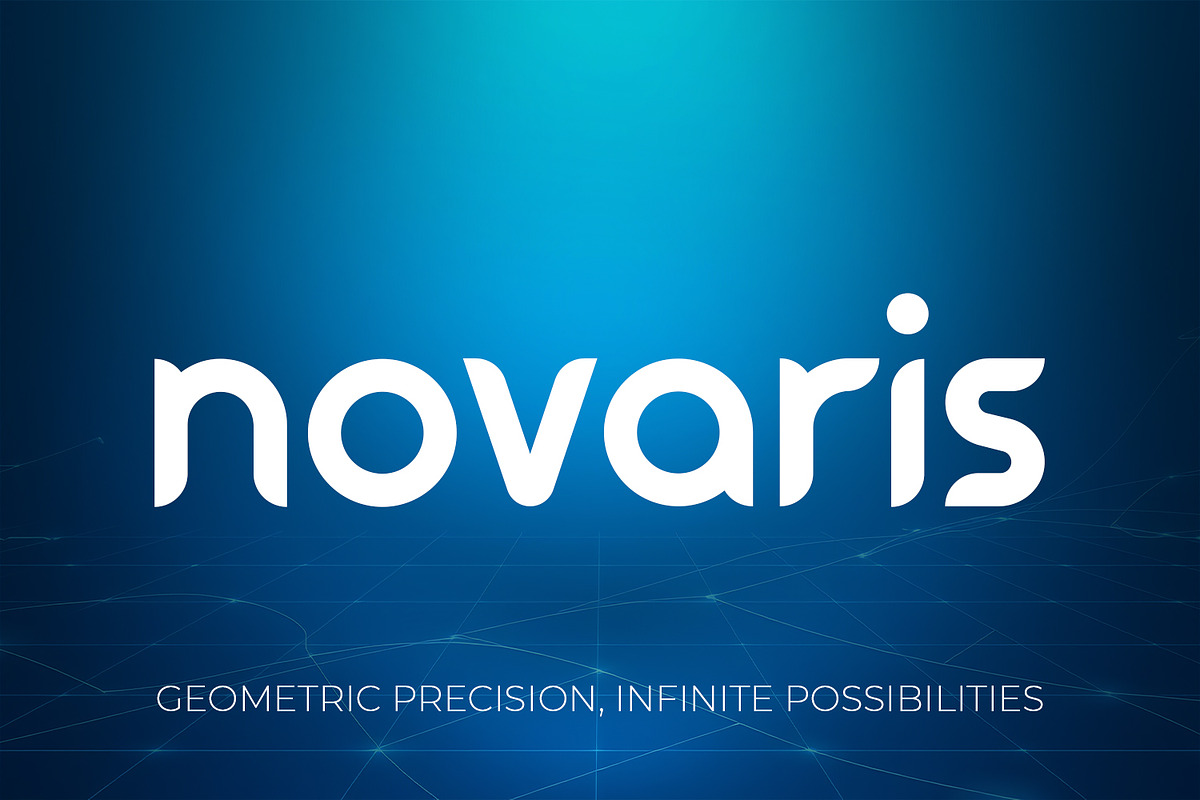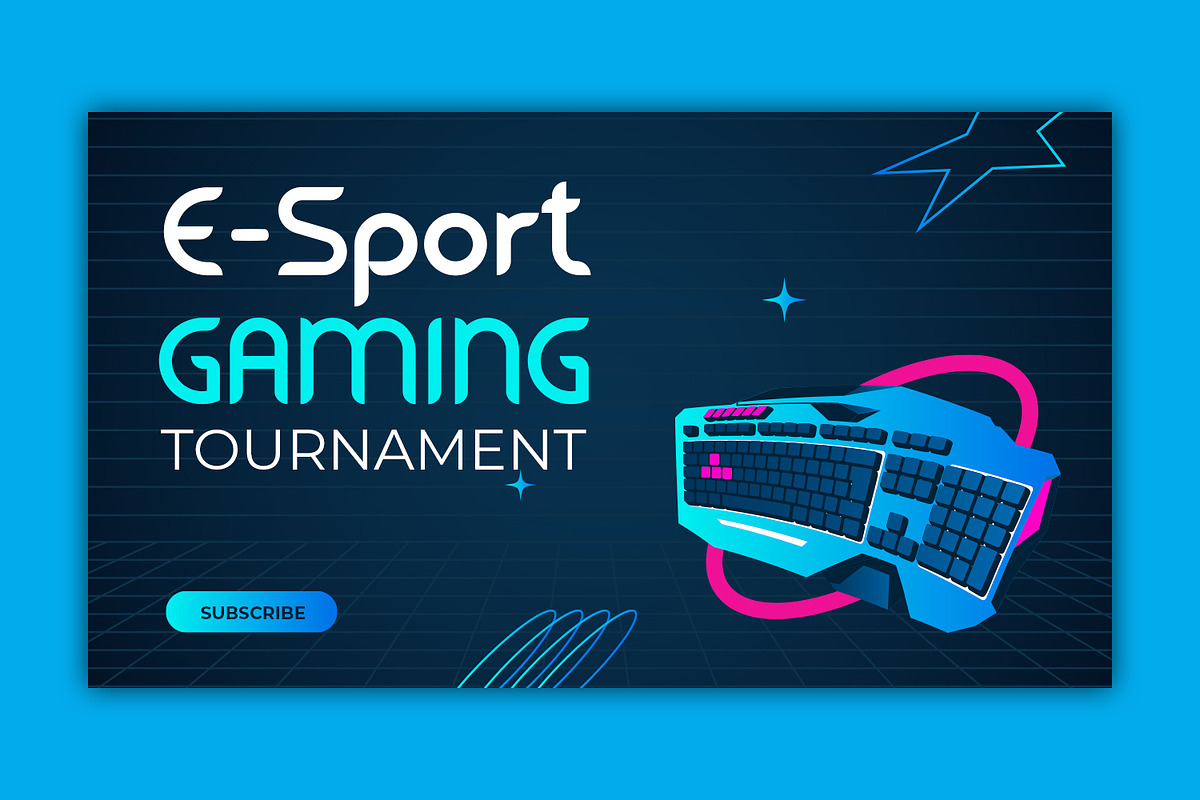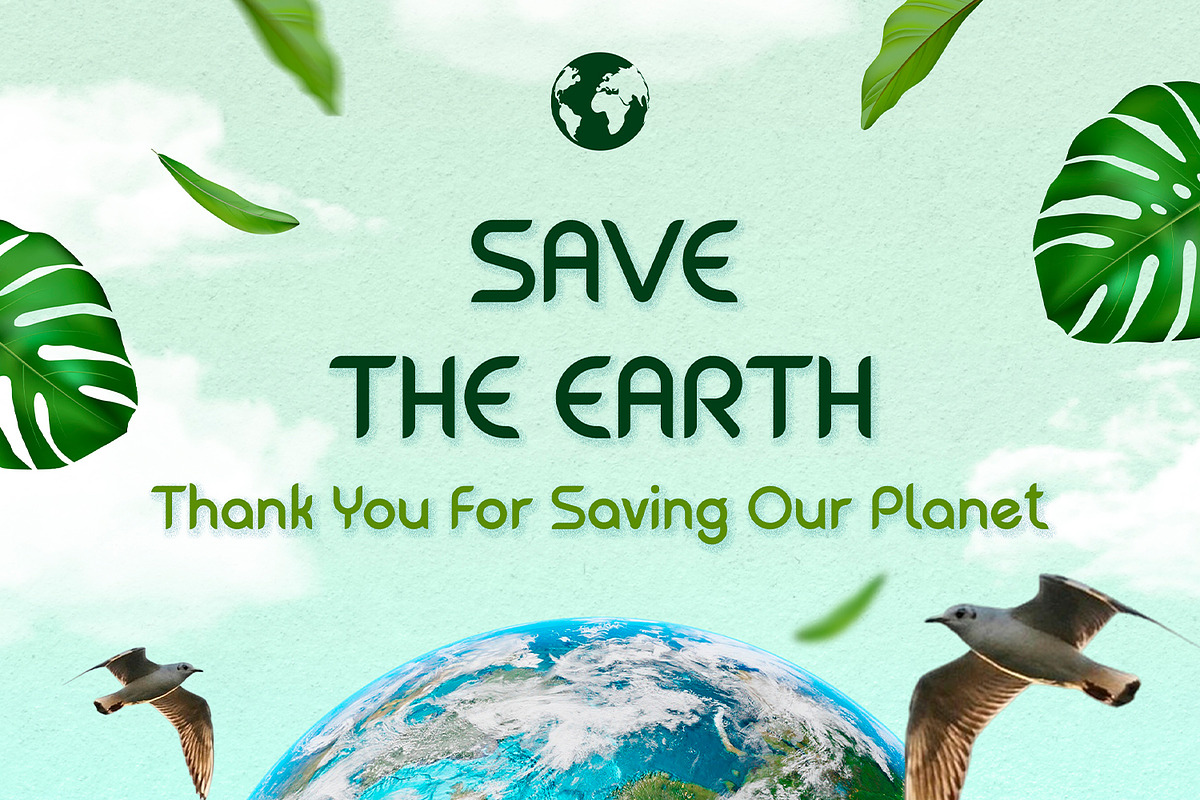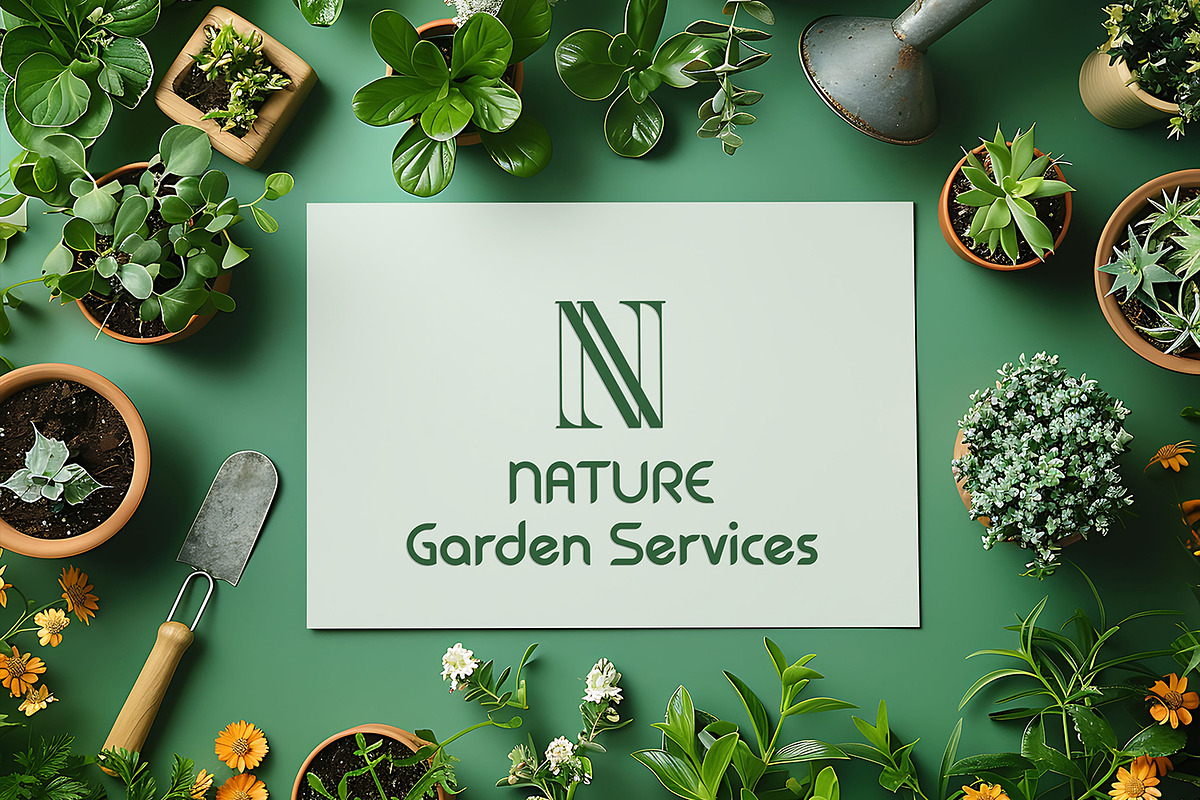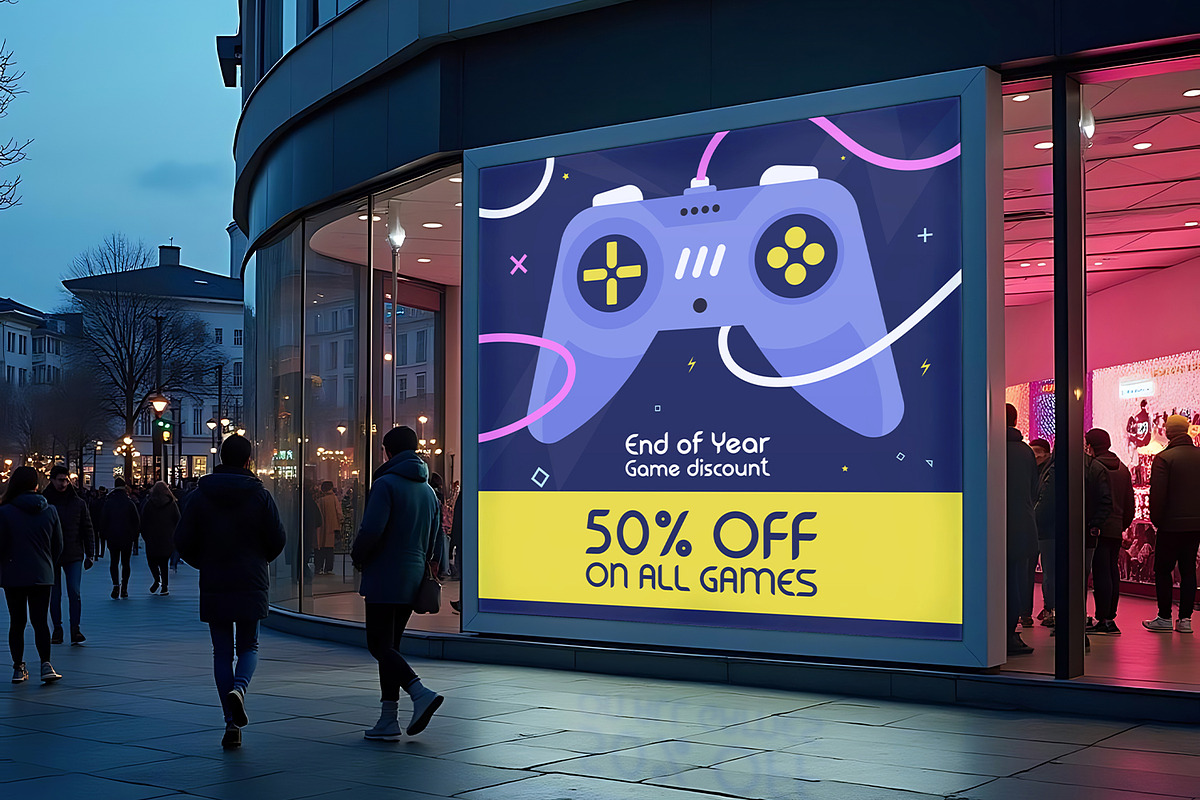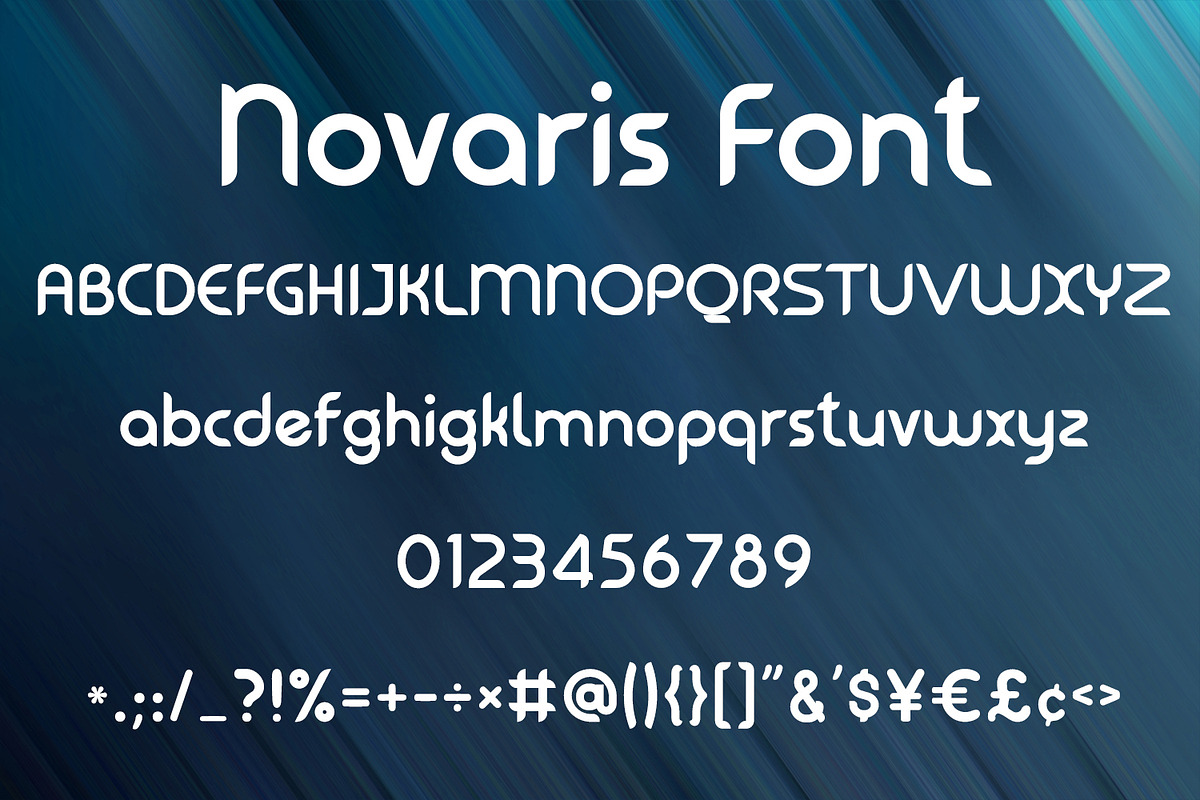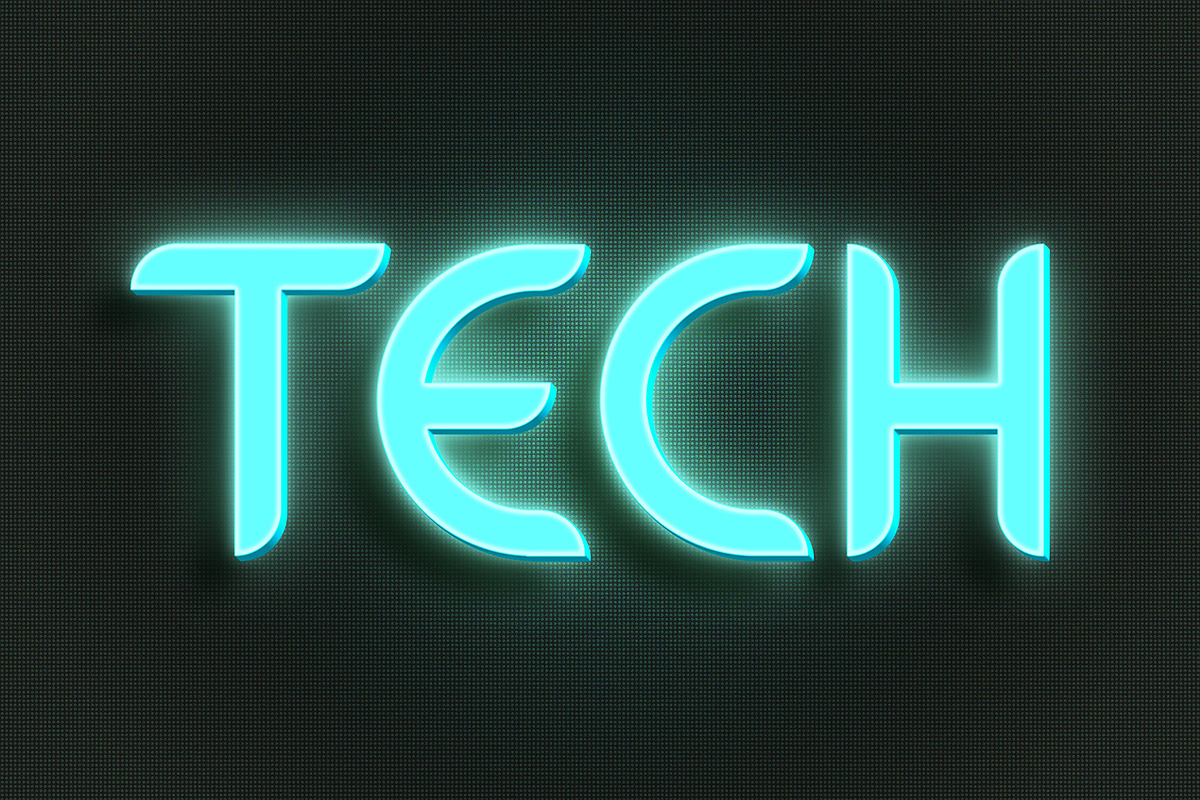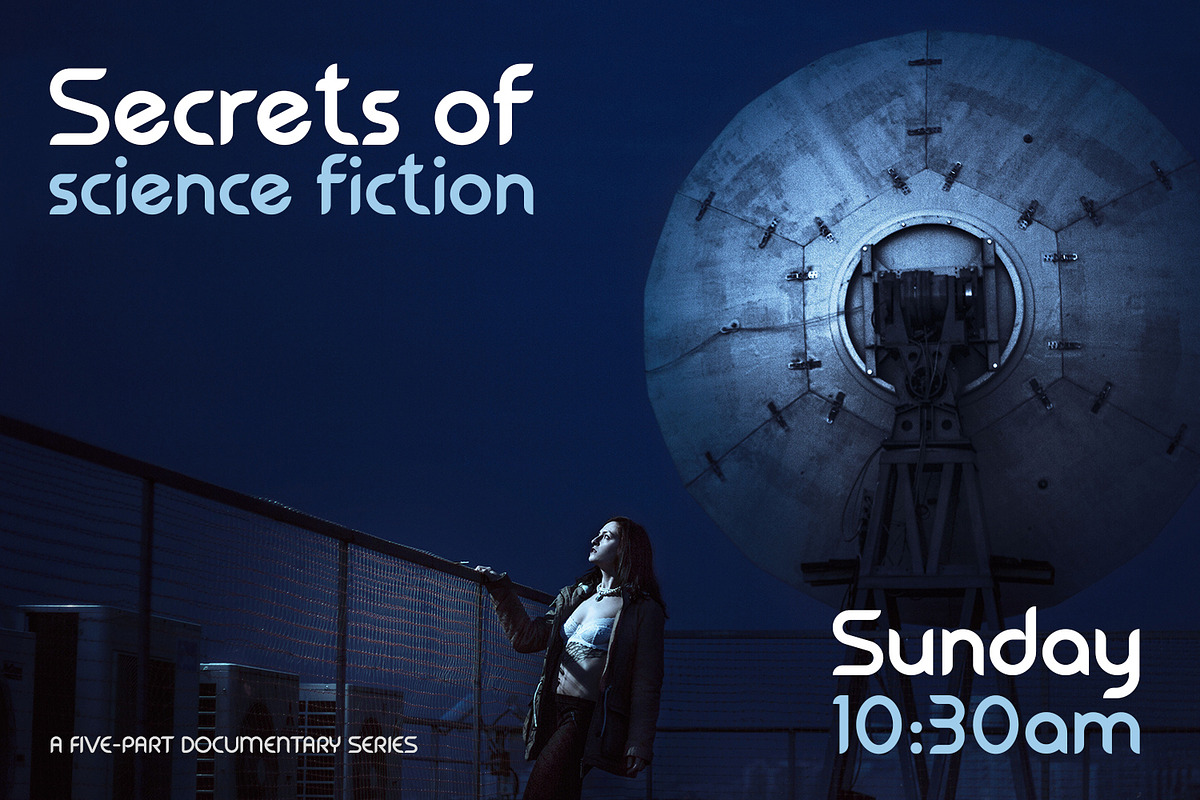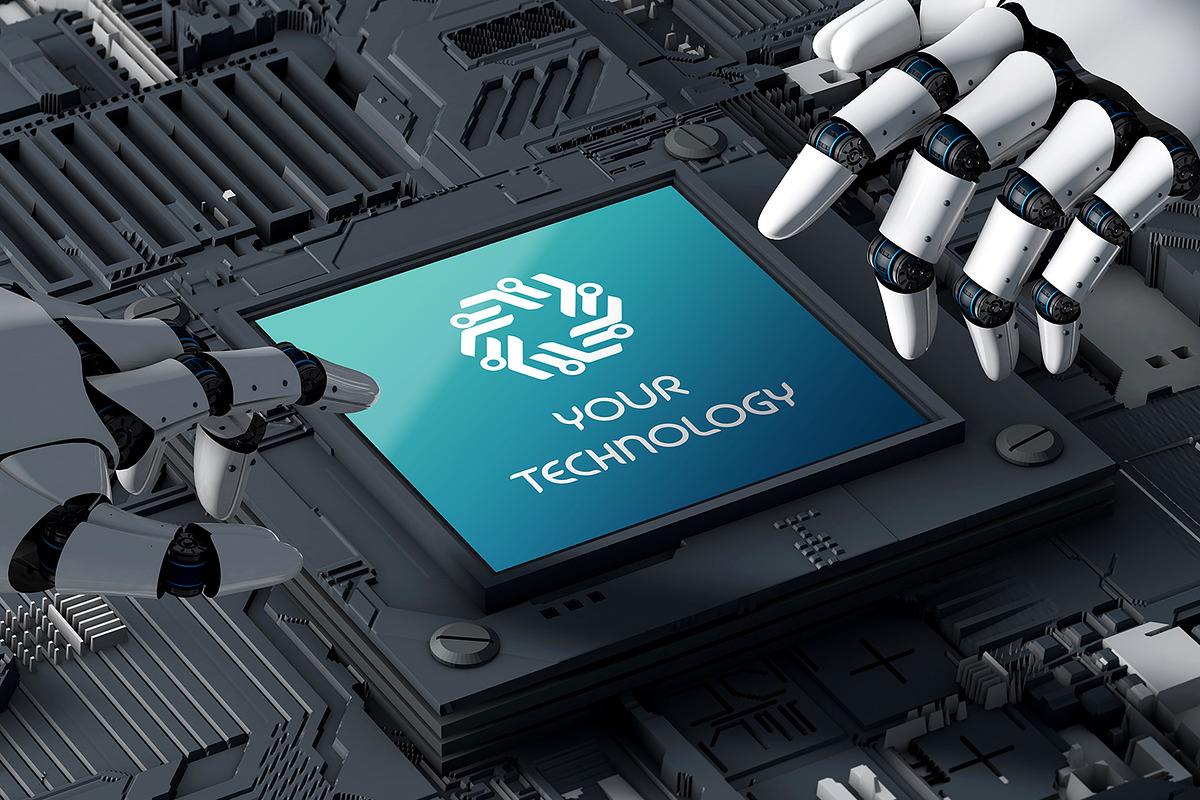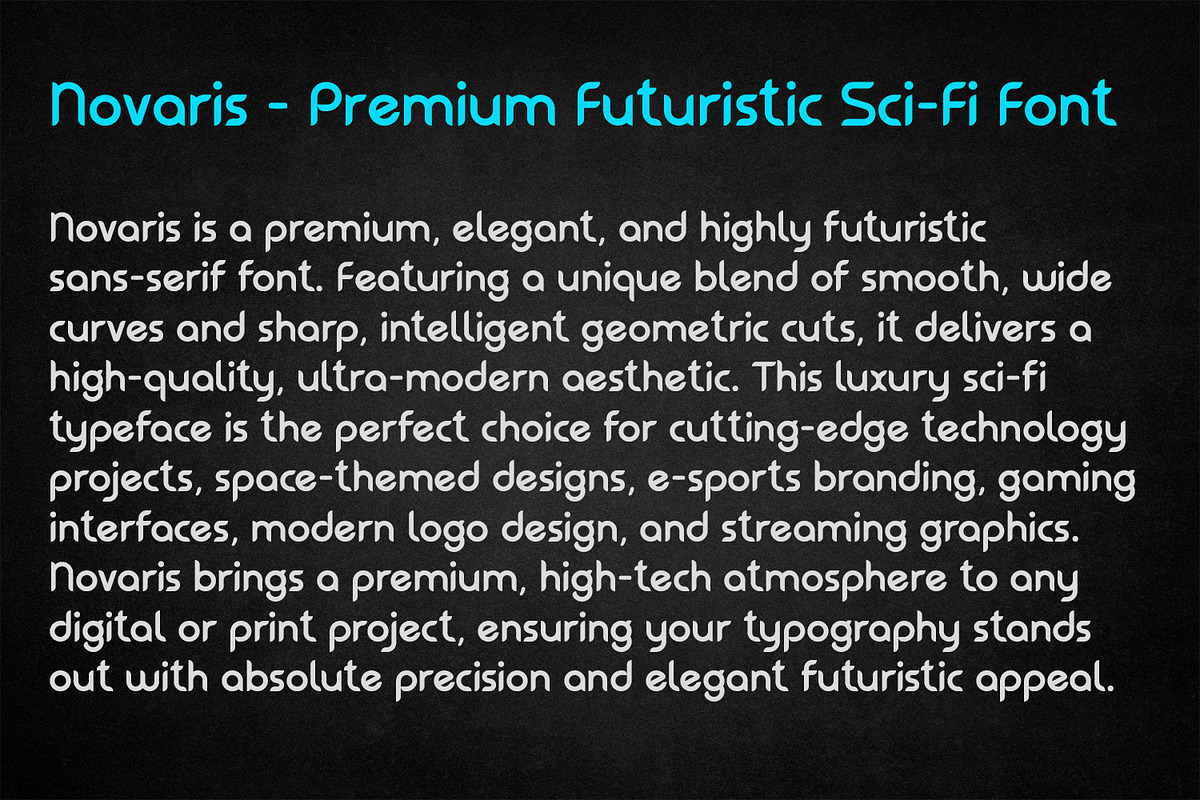
Novaris - Luxury Geometric Nature
Introducing Novaris, a premium and elegantly crafted geometric sans-serif font. With its perfect balance of modern, futuristic curves and sharp, clean cuts, Novaris is highly versatile. It is the ultimate typography choice for cutting-edge technology, sci-fi projects, and gaming interfaces. Beyond the digital realm, its clean, minimalist lines make it beautifully suited for eco-friendly campaigns, organic nature branding, earth conservation posters, and garden services. Whether you are designing a high-tech layout or a natural, sustainable brand identity, this luxury typeface delivers unmatched clarity and a striking visual impact.